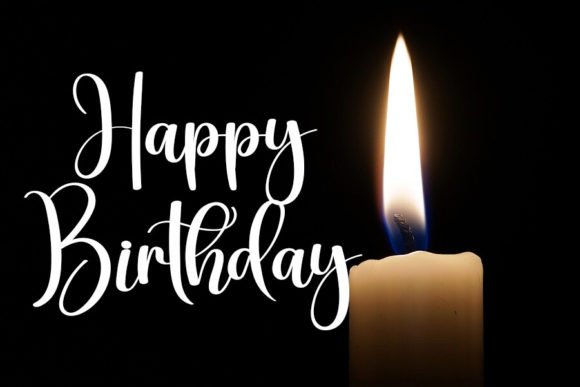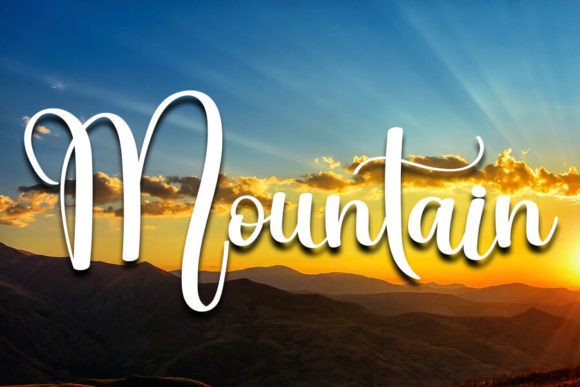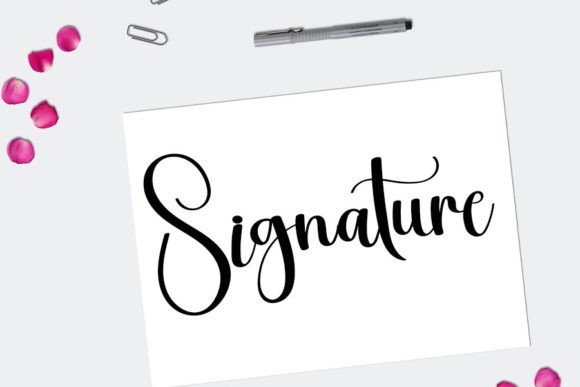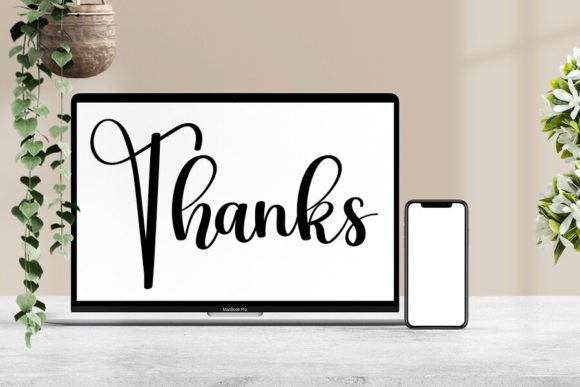
Introduction to Oneday Font
Have you ever found yourself stuck in a creative rut, searching for the perfect design element to elevate your project from good to great? That’s exactly where the Oneday Font comes in – a sweet and cursive handwritten font that will add a touch of joy and romance to your work.
As a designer, you know how valuable a high-quality design resource can be. The Oneday Font is one such treasure, offering a wide range of creative possibilities with its free download feature and transparent background option. Whether you’re working on a wedding invitation, a greeting card, or a social media post, this font is sure to bring a smile to your face and inspire your next creative project.
With its gentle, handwritten feel, the Oneday Font is a must-have in your design arsenal. In this article, we’ll delve into the world of this lovely font and explore its many uses, so you can unlock its full potential and take your designs to the next level.
Key Features of Oneday Font
- High-quality, professional font design ideal for creative projects and design resources.
- Transparent background, allowing for seamless integration with any design or image.
- Unique, modern design with a clean and minimalist aesthetic, perfect for modern design projects.
- Includes a range of characters, including uppercase and lowercase letters, numbers, and special characters, making it a versatile design resource.
- Perfect for use in graphic design, digital art, and other creative projects where a high-quality, unique font is required.
Honest Review: Oneday Font
I recently stumbled upon the Oneday Font while searching for a high-quality design resource for a creative project. I was pleasantly surprised by the results.
- ✨ High-quality typography: The Oneday Font has a clean and modern aesthetic that makes it perfect for a variety of design applications.
- ✨ Transparent background: This allows for seamless integration with other design elements and gives you more creative freedom.
- ⚠️ Limited character set: The Oneday Font seems to be limited to a small set of characters, which might be a drawback for designers who need a more comprehensive font set.
- ⚠️ Not suitable for large-scale projects: While the Oneday Font is perfect for small to medium-sized projects, it might not be the best choice for large-scale designs that require a more robust font solution.
Overall, I’m impressed with the Oneday Font’s design and versatility. While it has some limitations, it’s an excellent resource for designers who need a high-quality, free font for their creative projects. I’d definitely recommend it for small to medium-sized designs and as a starting point for more complex projects.
Tips for Getting the Most Out of Oneday Font
To get the most out of the Oneday Font, try combining it with other design elements, such as graphics and images. You can also use the font to create a consistent look and feel across your creative project. Experiment with different font sizes, colors, and styles to find the perfect combination for your design.
The Oneday Font is a versatile font that can be used in a variety of creative projects, including logos, business cards, and social media graphics. It’s also a great choice for creating custom typography and illustrations.
Yes, Oneday Font is designed to be used with a transparent background. The font’s design allows for a seamless integration with your design elements, making it perfect for use in logos, icons, and other creative projects where a transparent background is required.
Is Oneday Font a high-quality design resource?
Yes, Oneday Font is a high-quality design resource that is carefully crafted to meet the needs of designers. The font is designed to be clear, legible, and aesthetically pleasing, making it perfect for use in a variety of creative projects, from print to web design.